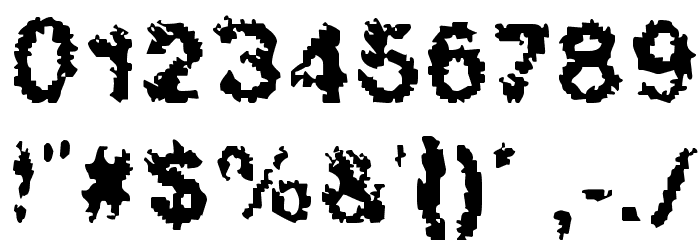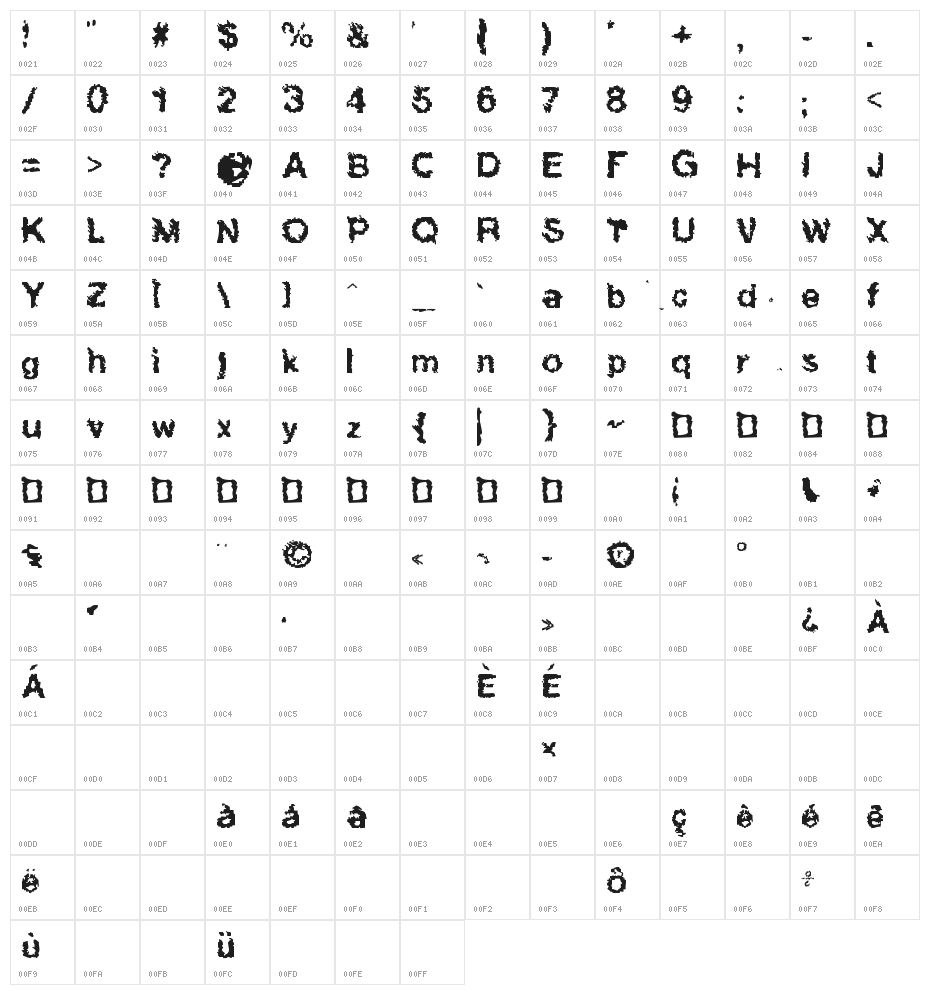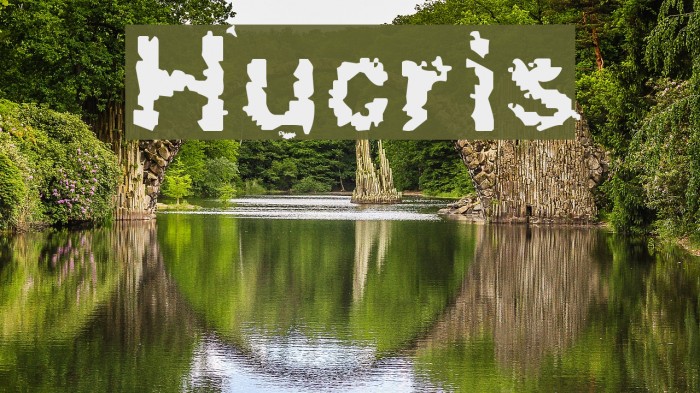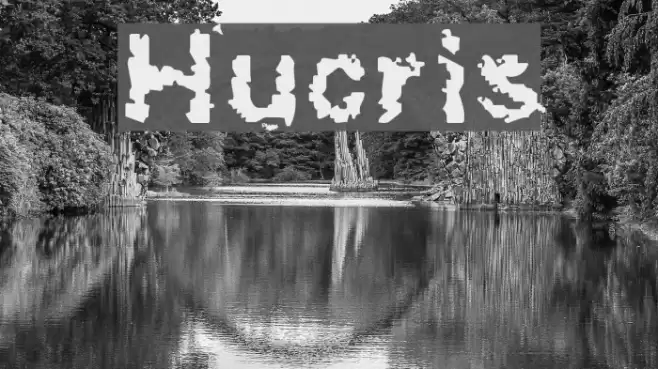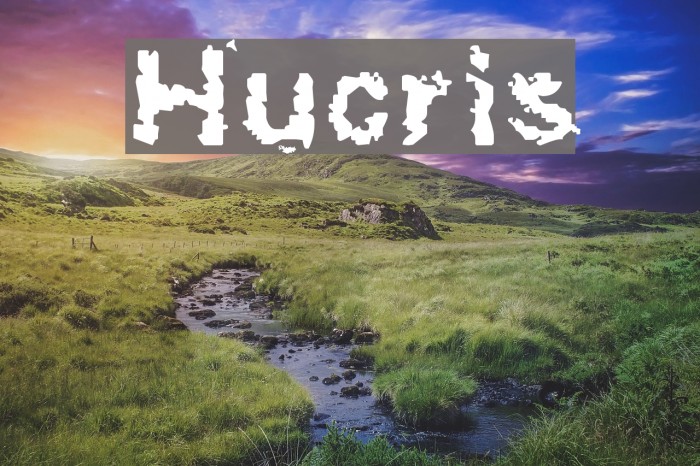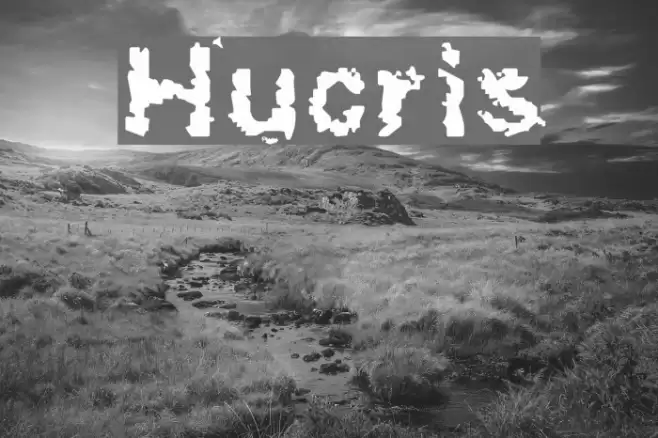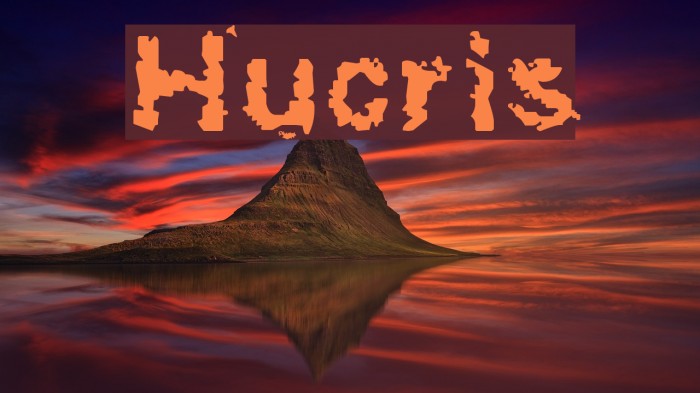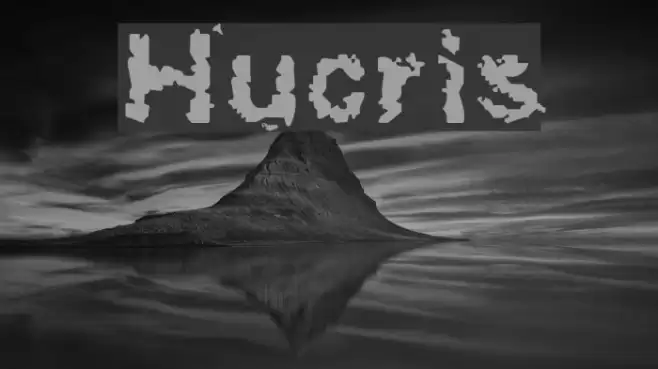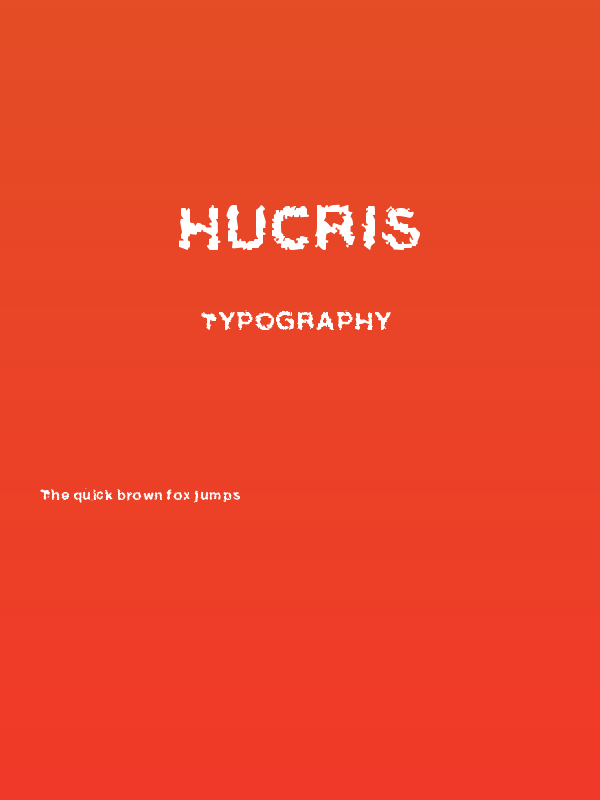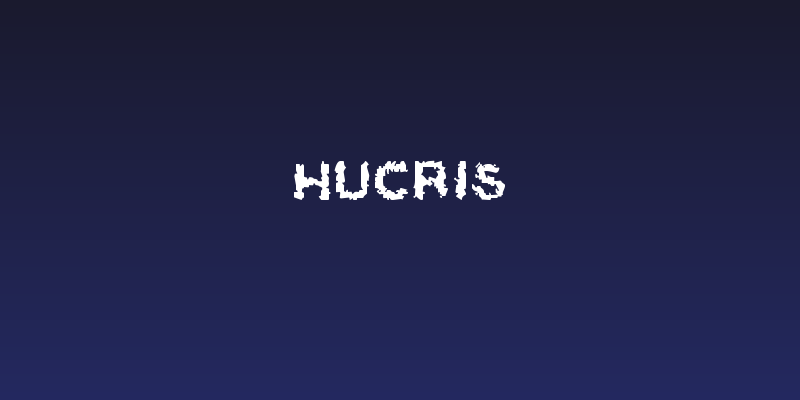
Hucris Font
Hucris Description
This font features a rugged, distressed appearance with irregular edges that give it a unique, textured look. The characters appear as if they have been eroded or weathered, creating a bold and impactful visual style. Each letter maintains a consistent height and width, ensuring readability despite the rough texture. The font's design is reminiscent of grunge or urban styles, making it suitable for projects that require a raw, edgy aesthetic. The uppercase and lowercase letters are well-defined, and the numbers and special characters follow the same distressed theme, providing a cohesive look across all elements.
| Overall Style | Grunge, Urban |
| Proposed Projects | Ideal for album covers, posters, streetwear branding, or any project needing a grunge or urban aesthetic. |